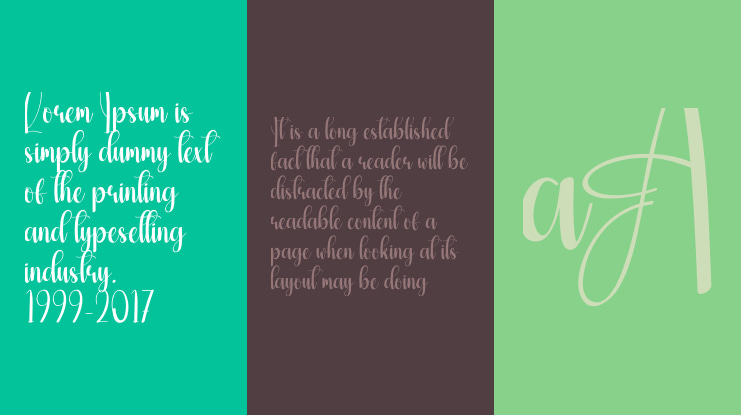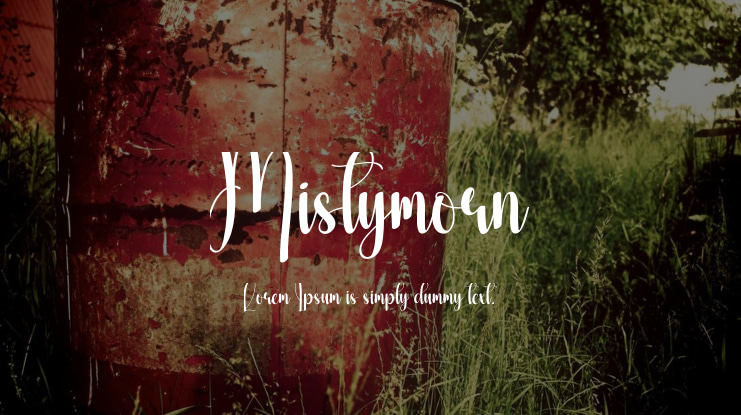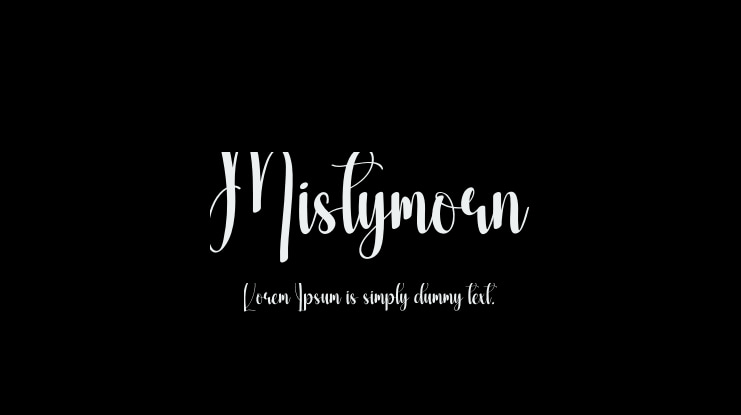
Our latest style letters are ideal for a myriad of applications, including wall displays, wedding invitations, social media post logos, advertisements, product packaging, product designs, labels, photography, watermarks, stationery, and any other project that demands elegant handwriting.